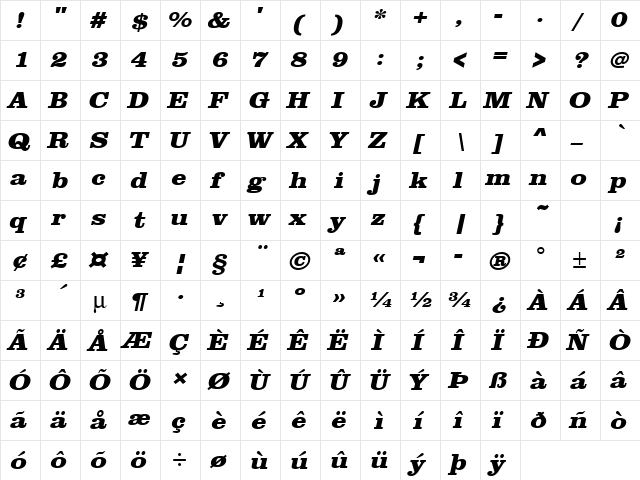
URWClarendonTExtBolExtWid Oblique
Design Context for URWClarendonTExtBolExtWid Typeface
URWClarendonTExtBolExtWid combines the readability of serif typography with the visual weight of a slab construction, resulting in a typeface that feels both authoritative and approachable. The slanted form adds forward momentum and visual energy.
Works well in editorial design, news publishing, impactful branding, and poster typography.
Pro Tip: Try URWClarendonTExtBolExtWid set tight in headlines for a classic editorial feel. Its slab serifs create strong horizontal rhythm that anchors a page layout.